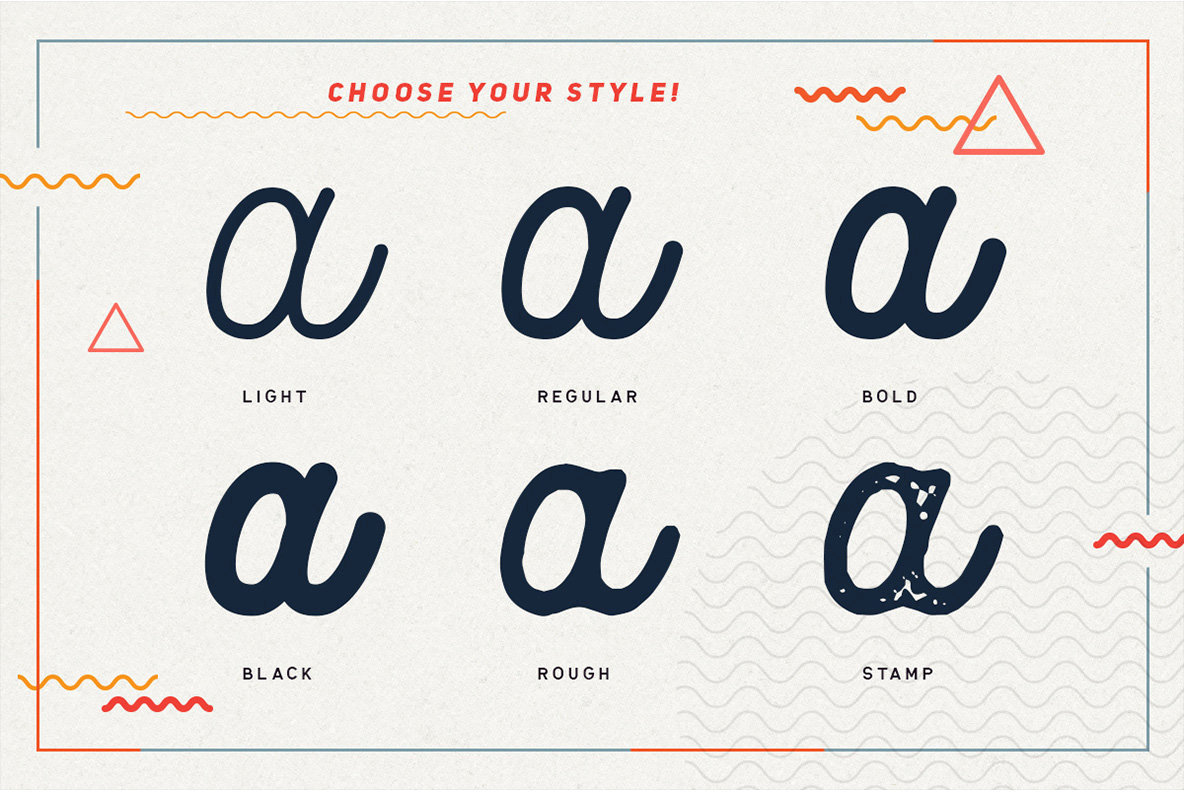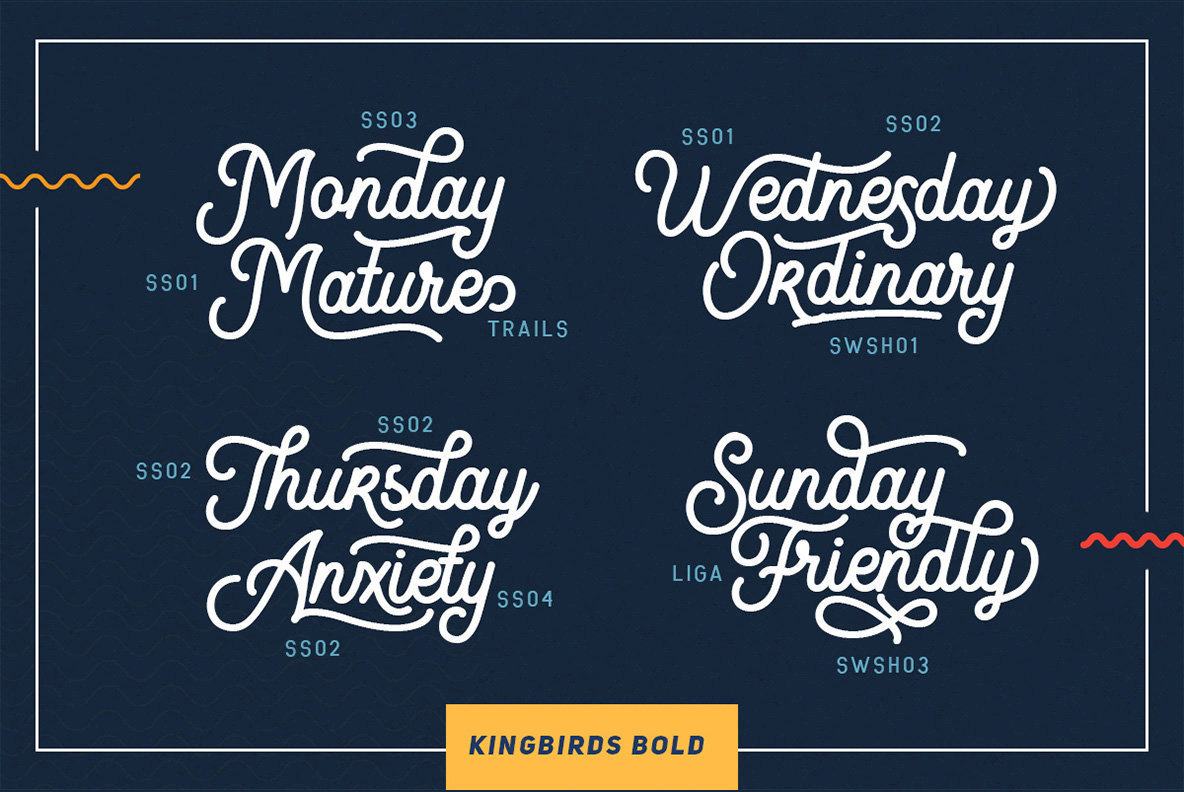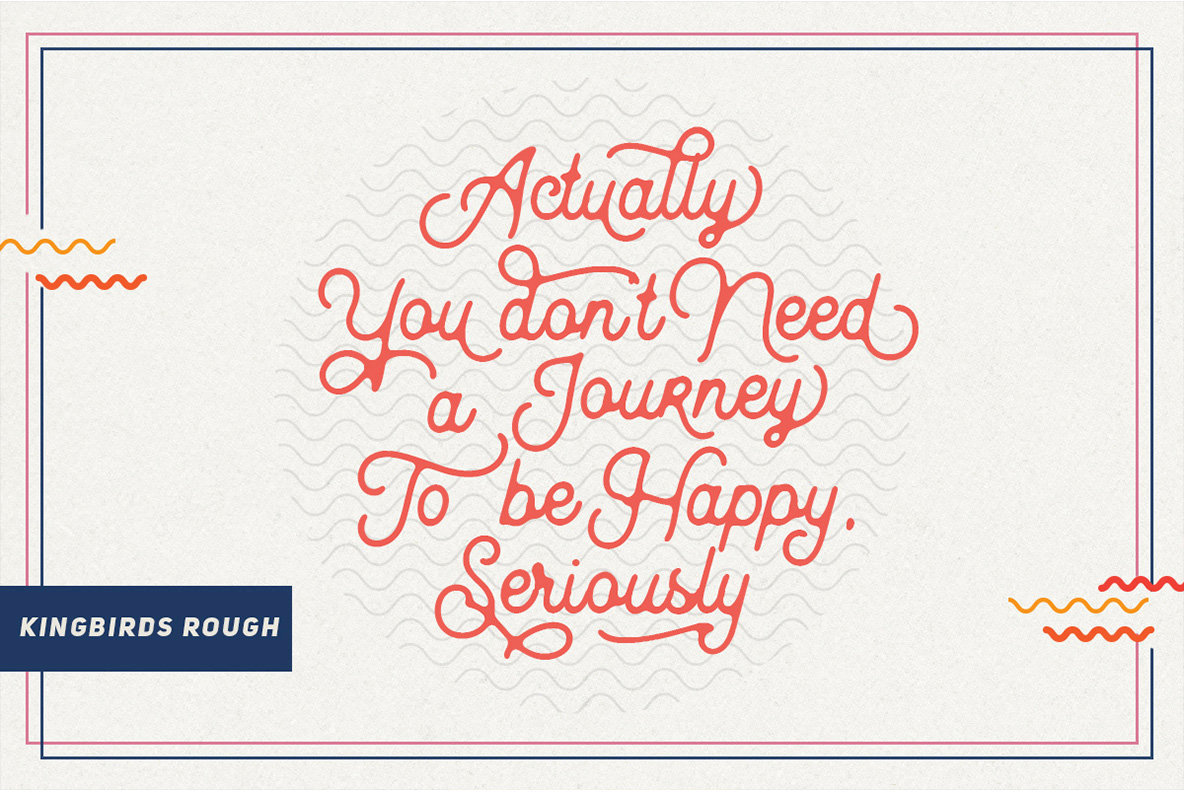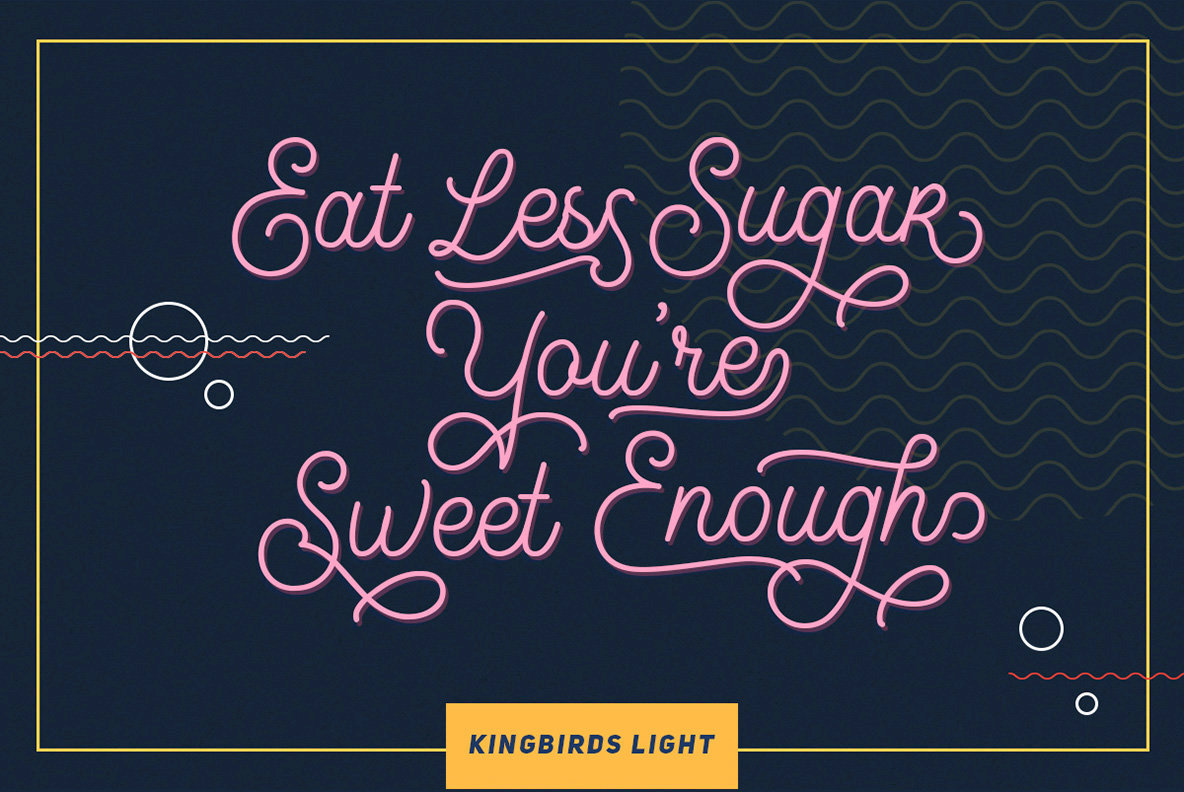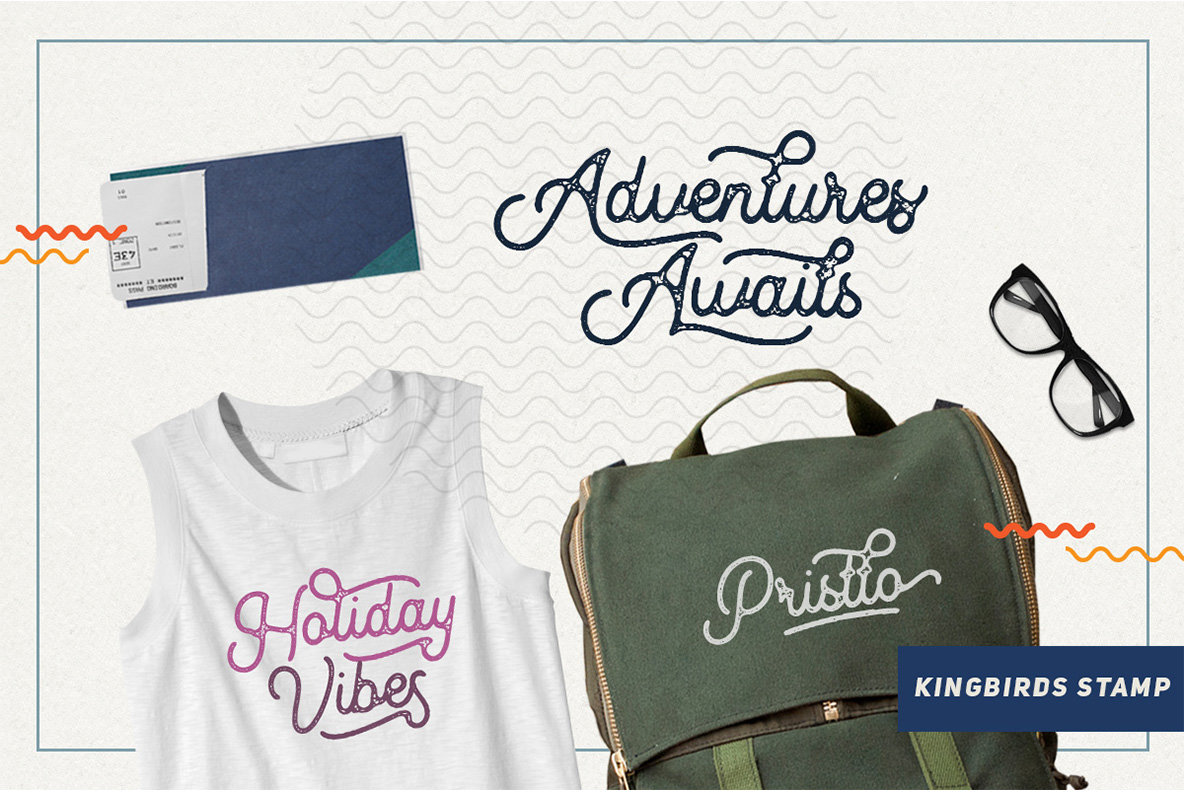
Kingbirds Font
If traditional monoline scripts are leaving you wanting more, Kingbirds offers a refreshing alternative with its six distinct styles. This typeface is crafted to address a diverse range of design aesthetics, whether you're aiming for a playful, elegant, or vintage theme. Beyond its aesthetic versatility, Kingbirds is packed with OpenType features, including ligatures and stylistic alternates, enhancing its functionality and creative potential. Additionally, it supports a wide array of multilingual characters, making it a robust choice for international designs.Kingbirds: The Versatile Monoline Script Collection